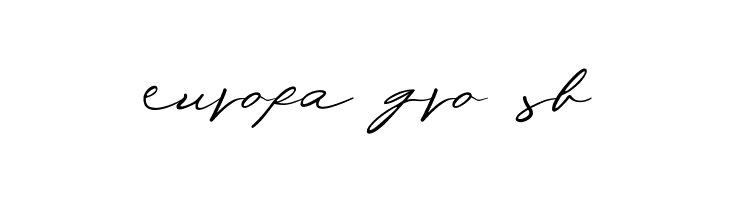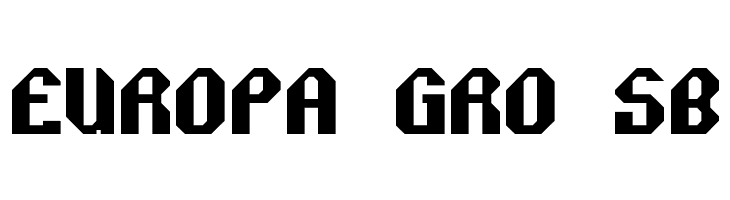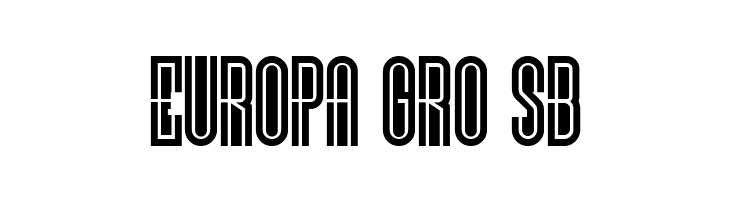
( Igor Berck - www.igorberck.com )
( JBFoundry - Jean Boyault - jean.boyault.pagesperso-orange.fr/ )
A playful and whimsical script font with curly, looping strokes and decorative flourishes.
( JBFoundry - Jean Boyault - jean.boyault.pagesperso-orange.fr/ )
A playful, handwritten-style font with rounded, smooth characters.
( JBFoundry - Jean Boyault - jean.boyault.pagesperso-orange.fr/ )
A slender, handwritten-style font with a clean and minimalist design.
( JBFoundry - Jean Boyault - jean.boyault.pagesperso-orange.fr/ )
A whimsical, handwritten font with elegant swirls and loops.
( JBFoundry - Jean Boyault - jean.boyault.pagesperso-orange.fr/ )
A delicate and elegant script font with flowing, graceful strokes.
( JBFoundry - Jean Boyault - jean.boyault.pagesperso-orange.fr/ )
A playful, handwritten script font with fluid, connected letters.
( JBFoundry - Jean Boyault - jean.boyault.pagesperso-orange.fr/ )
A modern, minimalist font with thin, uniform strokes and a clean aesthetic.
( JBFoundry - Jean Boyault - jean.boyault.pagesperso-orange.fr/ )
A modern, playful sans-serif font with clean lines and rounded edges.
( JBFoundry - Jean Boyault - jean.boyault.pagesperso-orange.fr/ )
A delicate, elegant font with thin strokes and a mix of geometric and cursive styles.
( JBFoundry - Jean Boyault - jean.boyault.pagesperso-orange.fr/ )
A versatile font combining clean uppercase letters with playful, handwritten lowercase characters.
( Jaime Rangel Castro )
A lively and elegant script font with flowing, cursive letterforms.
( Jeff Bensch - jbensch.deviantart.com )
A bold, hexagonal font with a futuristic and geometric design.
( John Barounis - www.arxwn.eu/ )
A font inspired by ancient Greek inscriptions with angular, geometric letterforms.
( Letterhend Studio - Hendry Juanda - creativemarket.com/letterhend )
A vibrant, brush-style font with a dynamic and artistic flair.
( Marco Ballarè - www.marcoballare.com )
A playful, rounded font with smooth curves and a friendly appearance.
( Måns Grebäck - www.mansgreback.com )
A bold, expressive script font with decorative swirls and high contrast.
( Qkila - Quentin Aquila - www.creativefabrica.com/designer/qkila/ )
A bold, dynamic script font with calligraphic influences and fluid strokes.
( Rasyid Annas )
An elegant, flowing script font with intricate loops and swirls.
( Woodcutter - woodcutter Manero - www.woodcutter.es )
A bold, expressive handwritten font with brush-like strokes and dynamic forms.
A futuristic, hollow, and geometric font with a modern aesthetic.
A futuristic, geometric font with rounded edges and a playful, alien-like aesthetic.
A bold, rounded font with a futuristic and geometric style.
A modern, futuristic font with bold, rounded strokes and a playful yet sophisticated style.
A modern, flowing italic font with rounded, connected characters.
A bold, italicized font with rounded, playful characters.
( ADavis )
A casual, handwritten font with a playful and informal style.
( Andy Kennedy )
A modern, geometric font with thin lines and a minimalist style.
( Billy Argel - billyargel.com/ )
A bold, flowing script font with elegant curves and smooth strokes.
( Character )
An ornate and decorative font with intricate swirls and flourishes.
( Character )
An ornate, vintage-style font with intricate floral patterns.
( GeelynEdits - plus.google.com/u/0/108461348931992643310/ )
A pixelated, monospaced font with a retro digital aesthetic.
( HPTypework )
An elegant script font with graceful, flowing strokes and a sophisticated style.
( Harris Type - www.harristype.com/ OFF SITE )
A clean, modern font with geometric influences and consistent stroke width.
( JBFoundry - jean.boyault.pagesperso-orange.fr )
A playful and elegant script font with a handwritten feel.